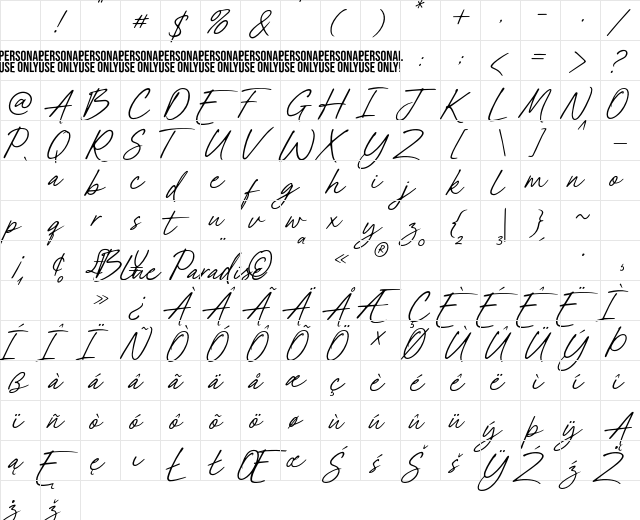
Complete Blue Paradise Personal Use Regular glyph index. Displaying only characters natively supported by Blue Paradise Personal Use Regular font.
Blue Paradise Personal Use is a composed and adaptable typeface that performs quietly and consistently across a wide range of design contexts.